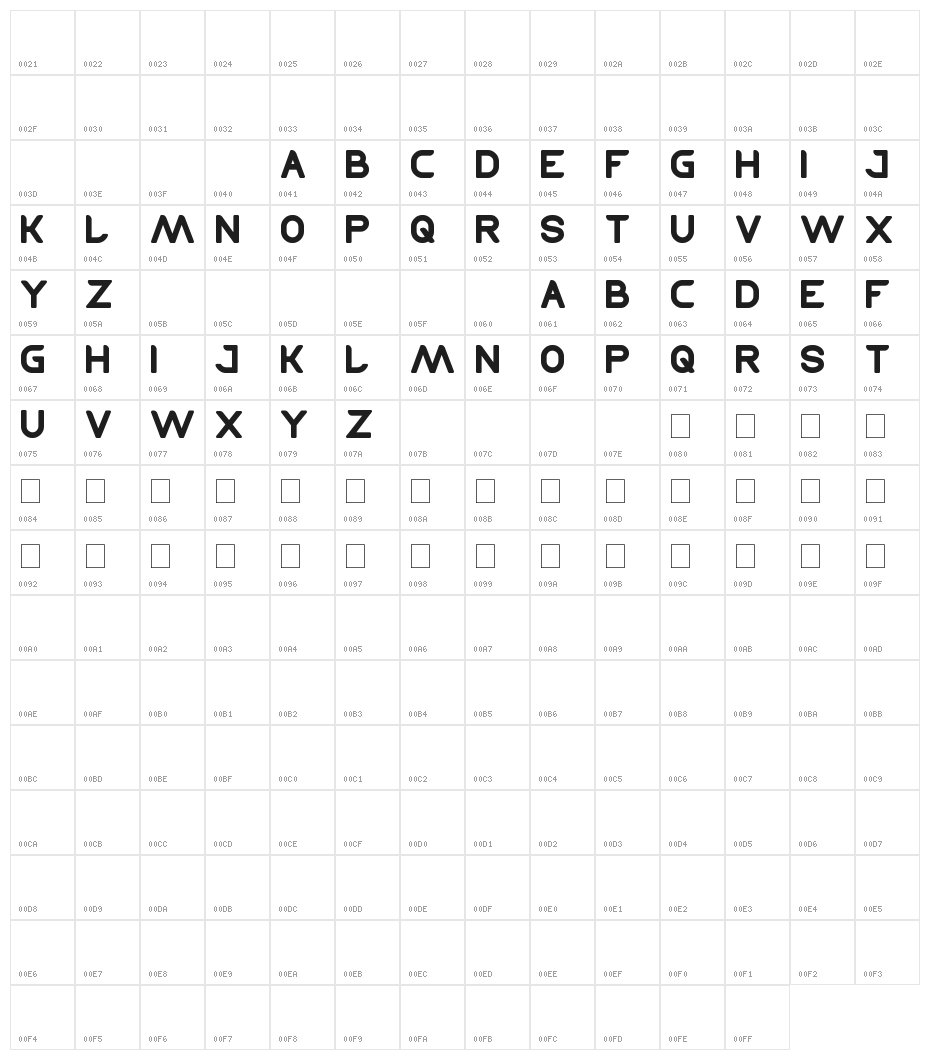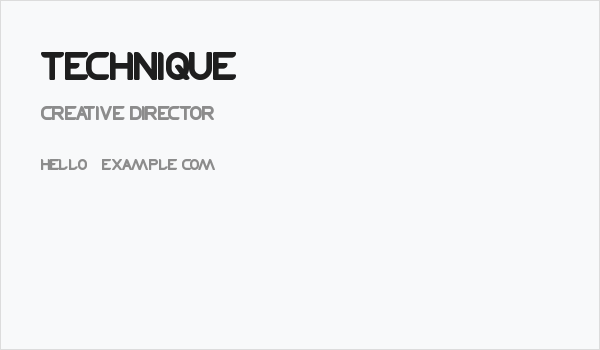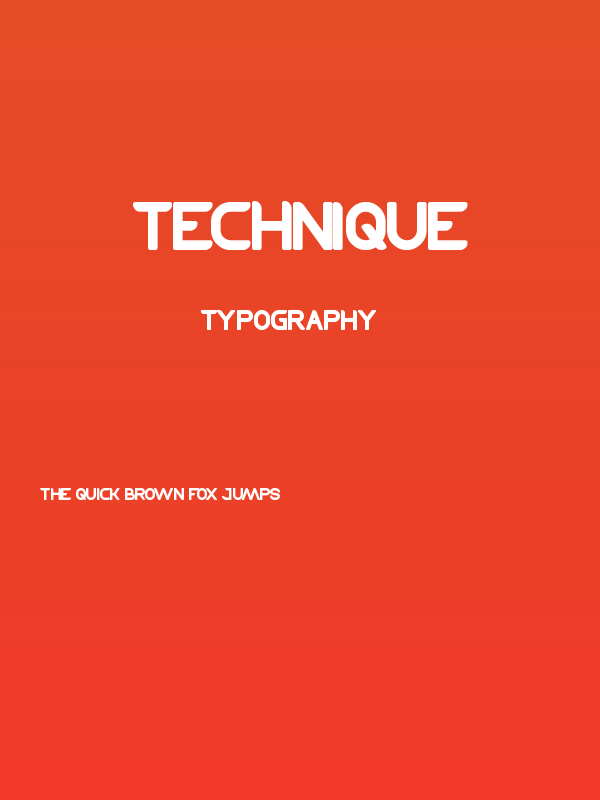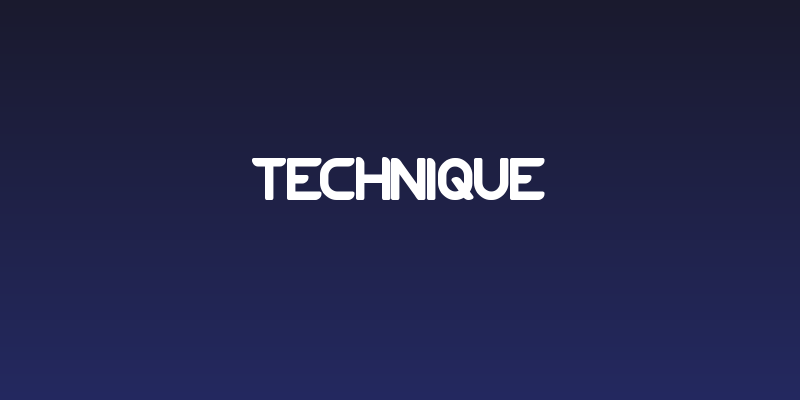
TECHNIQUE Font
TECHNIQUE Description
This font features a bold and modern design with a futuristic flair. The characters are constructed with thick, uniform strokes that give a sense of strength and stability. The rounded edges and smooth curves provide a sleek and polished appearance, while the consistent stroke width maintains a cohesive look throughout. The uppercase letters are prominent and commanding, making them ideal for attention-grabbing headlines or logos. The font's geometric structure is both functional and aesthetically pleasing, offering versatility for various design applications. Its contemporary style is well-suited for technology-related projects or any context where a modern, cutting-edge look is desired.
| Proposed Projects | Ideal for technology branding, futuristic posters, modern logos, and digital interfaces. |